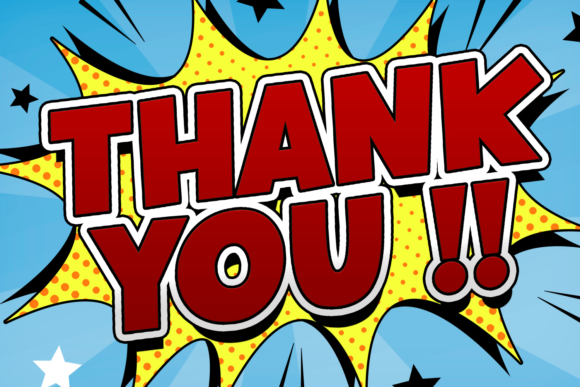
Fancy Comic Font
Fancy Comic is a fun and thick lettered display font. It is great for delivering any message with confidence, authenticity and charm. Use it for cartoons, magazine covers, games or pretty much anything that requires a jolly touch.